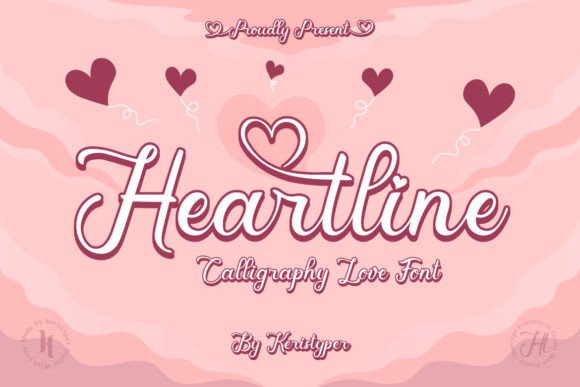
Embark on a typographic journey with Heartline, a mesmerizing script font designed to captivate your audience. Crafted with meticulous care and a touch of elegance, Heartline is poised to elevate your creative expressions to new heights. Its graceful, flowing curves exude a sense of sophistication, rendering it the perfect choice for crafting heartfelt logos, captivating social media posts, and enchanting movie titles.
Dive into the world of Heartline and let your imagination run wild. Its versatility shines through, whether you're designing eye-catching book covers or crafting the perfect secondary font to complement your sans or serif designs. Unleash your creativity and watch as Heartline seamlessly blends with your artistic vision, adding a unique charm to your projects.
Step into the enchanting realm of calligraphy and let Heartline be your trusted guide. This remarkable font dances and sways with an effortless grace, capturing the essence of handwritten beauty. Its flowing lines and delicate flourishes lend an air of authenticity to your projects, ensuring that your messages are delivered with a touch of elegance and charisma.
Heartline isn't just a font; it's an experience. As you type each character, feel the magic unfold before your eyes. Words transform into art, capturing the essence of your emotions and conveying them to your audience. Prepare to be mesmerized as Heartline weaves its enchanting spell, leaving a lasting impression on all who behold it.